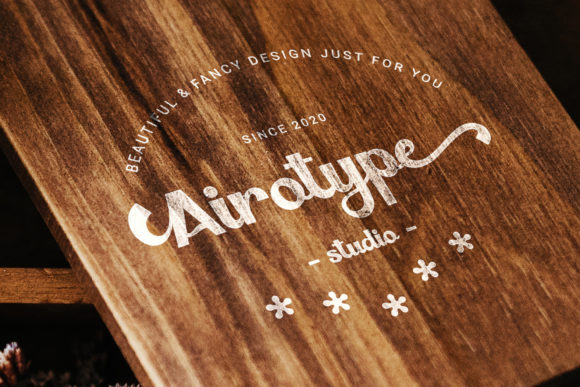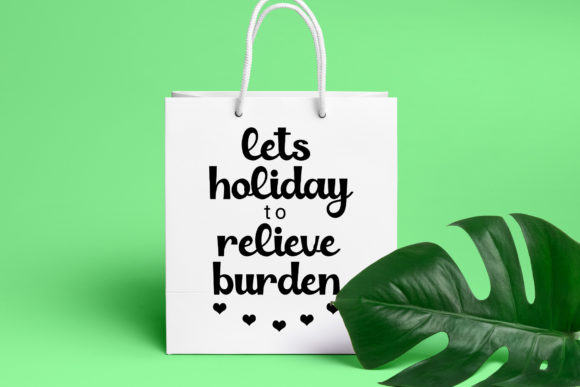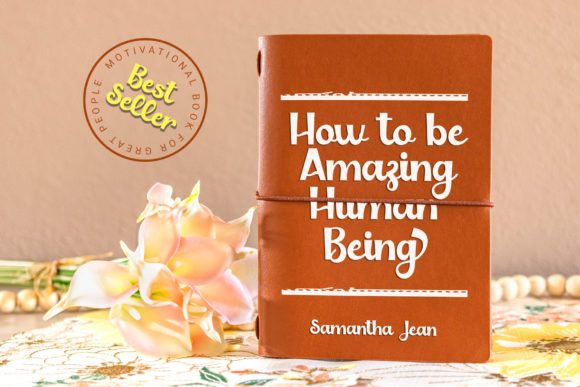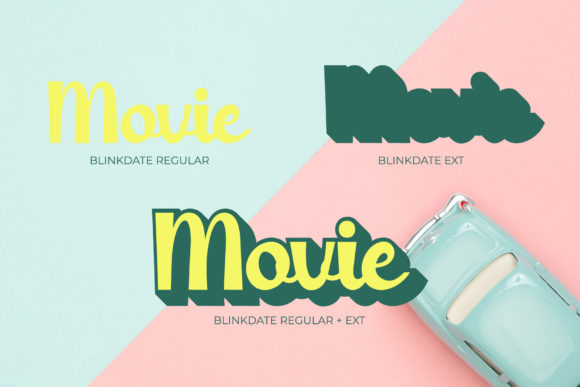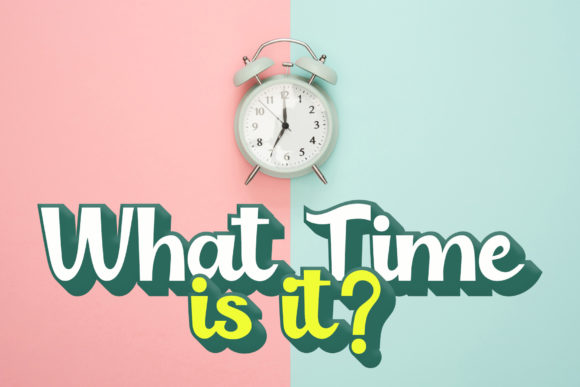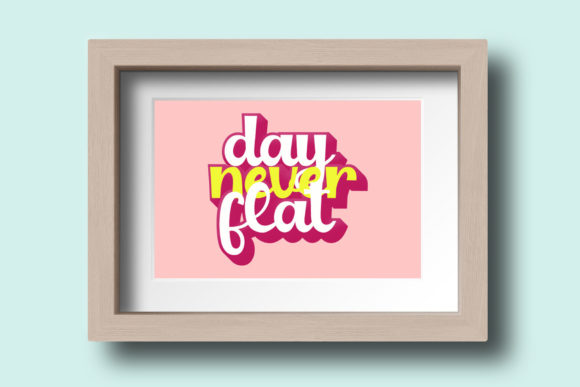
Have you ever been in the middle of a design project, staring at a blank page, and suddenly a spark of inspiration hits you? Maybe it’s a color palette, a typography choice, or a font that perfectly captures the essence of your idea. For me, that spark came when I discovered the Blinkdate Font.
This elegant and bold handwritten font is more than just a pretty face – it’s a versatile tool that can elevate your designs to the next level. With its perfect blend of trendiness and sophistication, Blinkdate Font is the perfect addition to any designer’s toolkit. Whether you’re working on a branding project, a social media campaign, or a blog post, this font is sure to make your designs stand out.
- Unique Characteristics: Blinkdate Font features a unique, modern design with a blend of geometric and organic elements, making it ideal for use in creative and innovative projects.
- Font Style: Blinkdate Font is available in a single font style, but it includes a range of ligatures and swashes, allowing for added flair and creativity in typography.
Blinkdate Font Review
I recently had the chance to work with the Blinkdate Font, and I must say, it’s a unique addition to any design project. ✨ The font’s quirky, playful nature is perfect for capturing attention and adding a touch of whimsy to your work.
Here are some of the things that really stood out to me:
- ✨ The font’s flexibility in terms of size and style – it looks great in both large and small formats.
- ✨ The way it pairs well with bold, contrasting colors – it’s a great combination for creating visually appealing designs.
- ✨ The font’s versatility in terms of application – it’s suitable for a wide range of design projects, from social media graphics to posters and flyers.
However, there are a few limitations to be aware of:
- ⚠️ The font may not be the best choice for formal or professional projects, as it can come across as too casual or playful.
- ⚠️ The font’s readability can be affected by its quirky nature, so be mindful of the font size and line spacing when using it.
Overall, I think the Blinkdate Font is a great addition to any designer’s toolkit. It’s a fun, creative font that can add a unique touch to your designs. With a little caution and consideration, it can be a valuable asset in your design projects.
Tips for Getting the Most Out of Blinkdate Font
Use Blinkdate Font to add a touch of modernity and elegance to your designs. Experiment with different font sizes, colors, and styles to find the perfect combination for your project.
Blinkdate Font is ideal for use in logos, branding materials, and digital marketing campaigns. It’s also great for creating eye-catching headings and titles in presentations and documents.